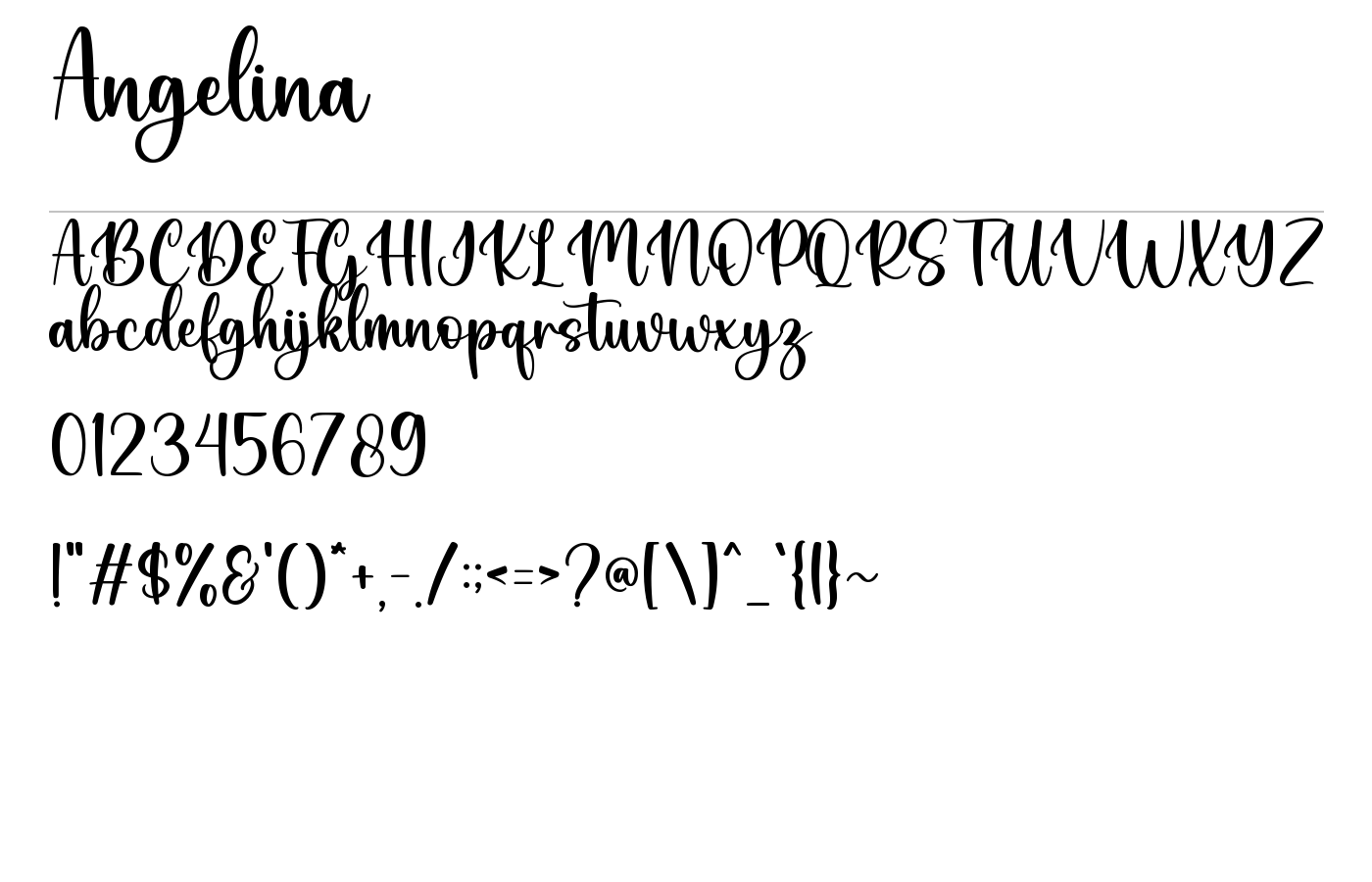
Angelina is a stylish script font with elegant, flowing letterforms that combine a casual, handwritten feel with refined sophistication. Its tall, graceful strokes and smooth curves make it perfect for invitations, branding, and projects that seek a chic and personal touch. This font works especially well for fashion, beauty, and lifestyle designs where a sense of warmth and elegance is desired.
Angelina Font
About Angelina Font